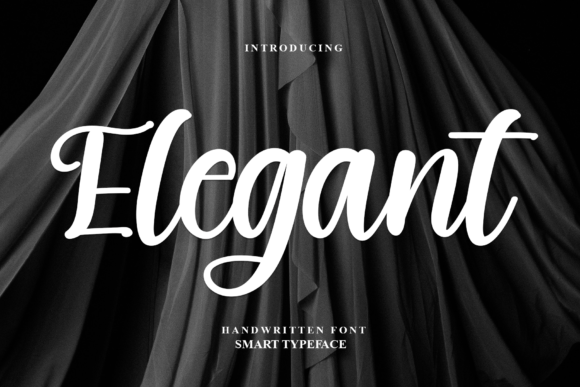
When Words Become Art
As a designer, there’s nothing quite like the thrill of creating something from scratch. It’s that moment when your imagination sparks, and your pencil starts to dance across the paper. You envision the perfect font – one that captures the essence of your message and transports your audience to a world of beauty and emotion.
That’s where Elegant Font comes in – a stunning, handwritten script that adds a touch of romance to any project. With its versatility and effortless charm, this font is perfect for everything from greeting cards to headlines. Whether you’re a seasoned designer or just starting out, Elegant Font is an invaluable addition to your toolkit.
Elegant Font Key Features
- Font Size: The font family includes 12 weights, ranging from Extra Light (100) to Extra Bold (800), providing flexibility for various design applications.
- Unique Characteristics: The font features a unique blend of elegance and sophistication, with subtle flair and flair, making it perfect for high-end branding, publishing, and advertising.
- Kerning and Ligatures: The font includes advanced kerning and ligature pairs, ensuring that text sets are beautifully arranged and visually appealing.
Elegant Font Review
I recently had the chance to work with the Elegant Font, and I must say it’s a beautiful addition to any design project. Here are some of the things I liked about it: ✨
- ✨ Beautiful typography: The Elegant Font has a classic, elegant feel to it that makes it perfect for high-end projects or luxury brands.
- ✨ Versatile: It comes in multiple weights and styles, making it suitable for a wide range of applications, from headings to body text.
- ✨ Easy to read: The font is highly legible, even at small sizes, making it a great choice for digital designs.
However, there are a few limitations to keep in mind: ⚠️
- ⚠️ Limited language support: The Elegant Font may not be optimized for languages that require complex typography, such as Arabic or Chinese.
- ⚠️ Not ideal for small text: While the font is easy to read, it may not be the best choice for very small text sizes, where the elegance can sometimes be lost.
Overall, I’m impressed with the Elegant Font. It’s a great choice for designers looking for a sophisticated, elegant look. While it may have some limitations, it’s well worth considering for the right project.
Some tips for getting the most out of Elegant Font include:
– Using it for titles and headings to add a touch of sophistication.
– Pairing it with other elegant fonts to create a cohesive look.
– Using it in combination with bold and italic styles to add emphasis.
– Using it in print materials such as business cards, brochures, and posters.
Alternatives to Elegant Font
Playfair Display is a luxurious and elegant font perfect for high-end designs, such as fashion magazines, luxury brands, or wedding invitations. It features beautiful connections between letters and a classic touch.
Compared to Elegant Font, Playfair Display has a more elaborate and luxurious feel, making it ideal for premium brands or high-end designs.
Great Vibes is a modern and elegant font with a touch of sophistication. It’s suitable for designs that require a sense of style and refinement, such as fashion, lifestyle, or travel websites.
Great Vibes is more modern and sleek compared to Elegant Font, making it a great choice for designs that need a contemporary feel.
Merriweather is a classic and elegant font with a traditional touch. It’s perfect for designs that require a sense of history and sophistication, such as academic journals, historical books, or classic websites.
What is the recommended font size and line height for Elegant Font?
The recommended font size for Elegant Font is between 12pt and 14pt, with a line height of 1.2 to 1.5 times the font size. This will ensure optimal legibility and readability on various devices and screen resolutions.